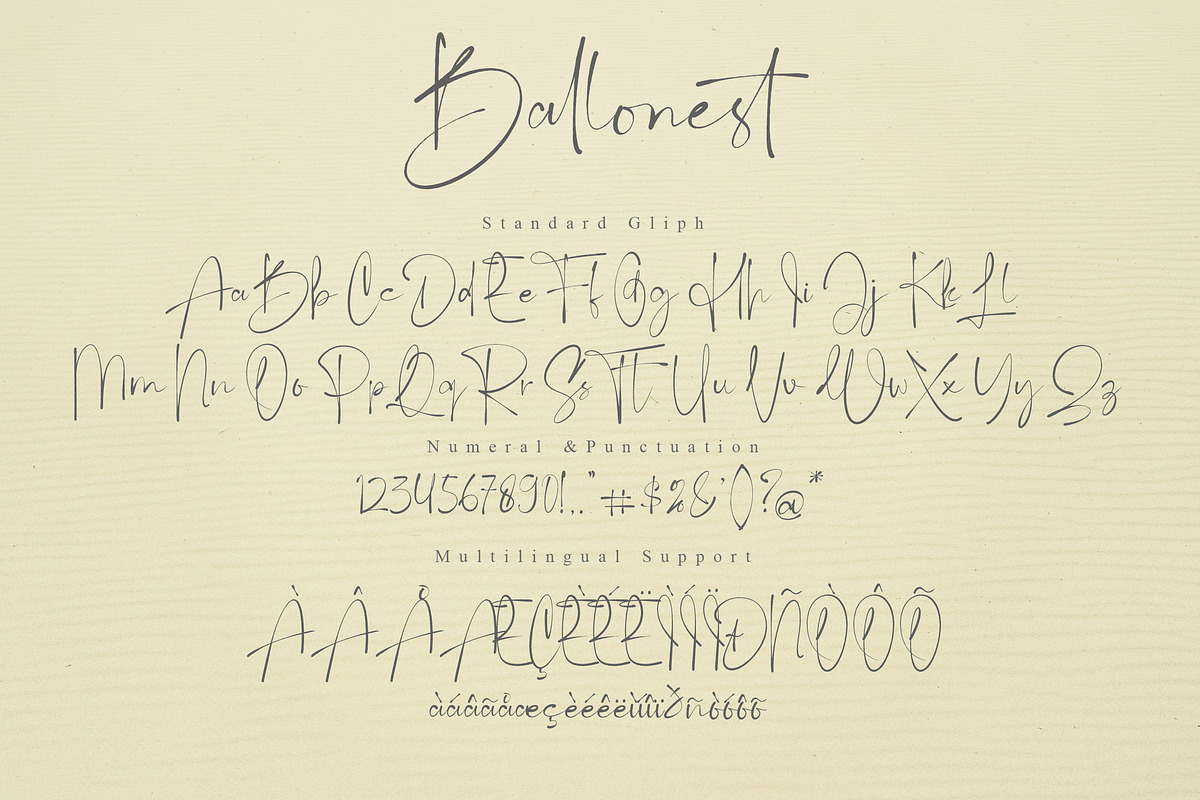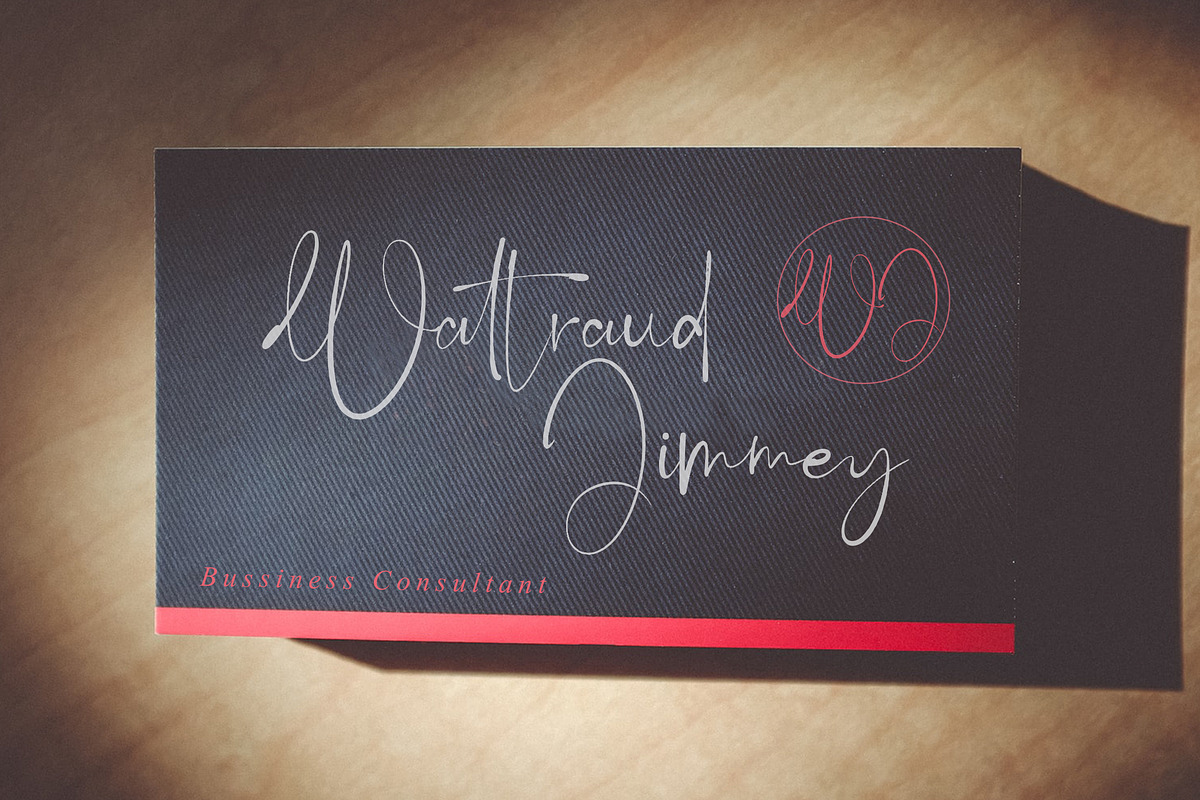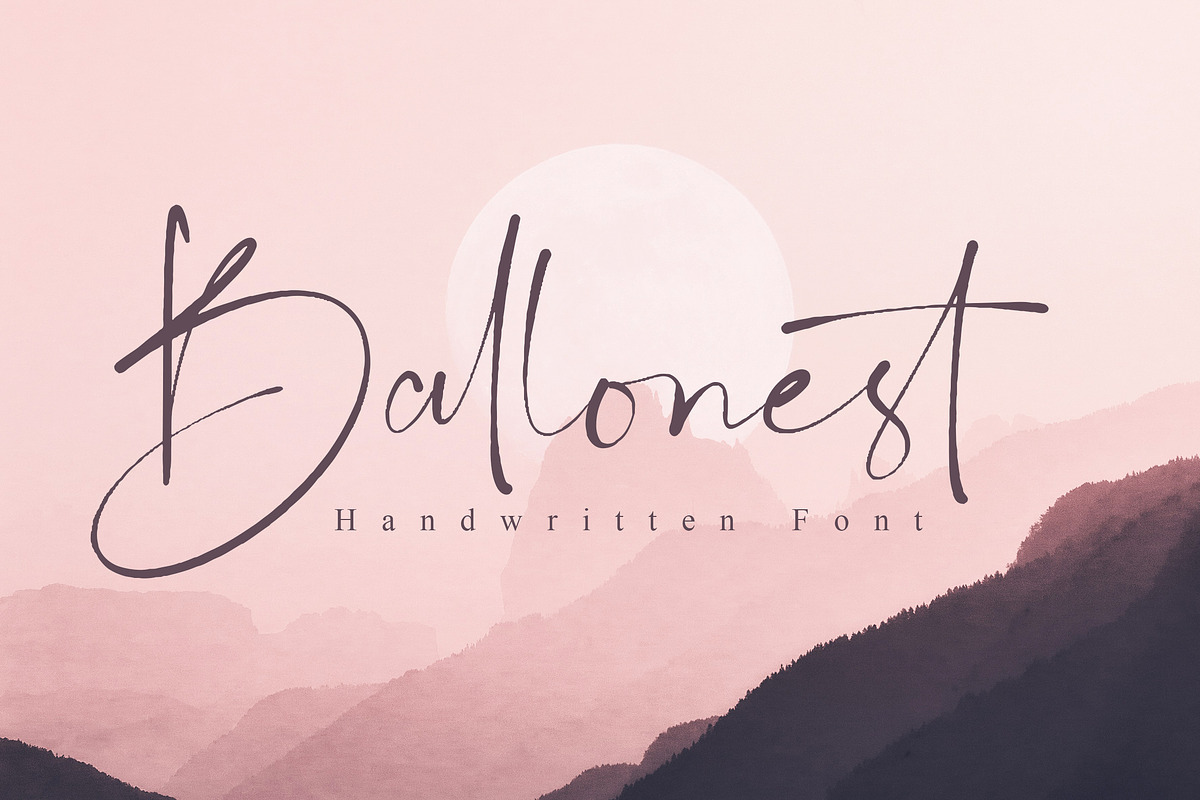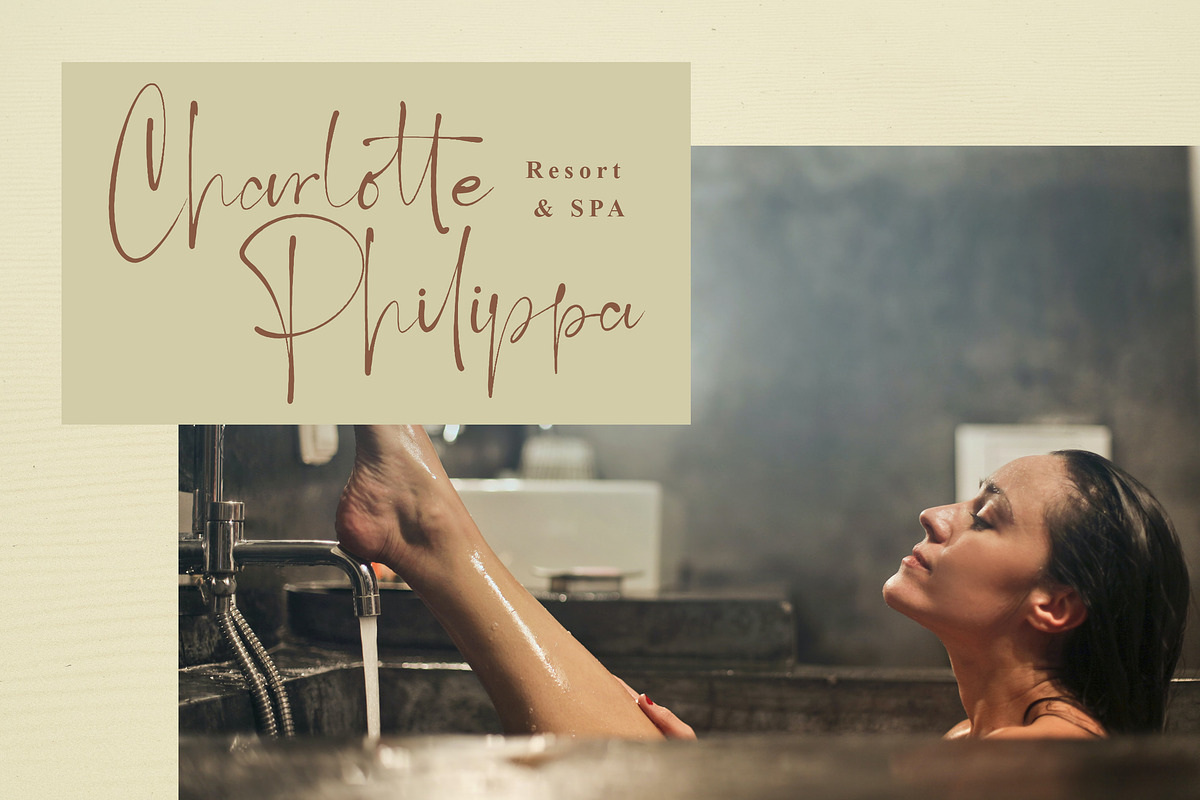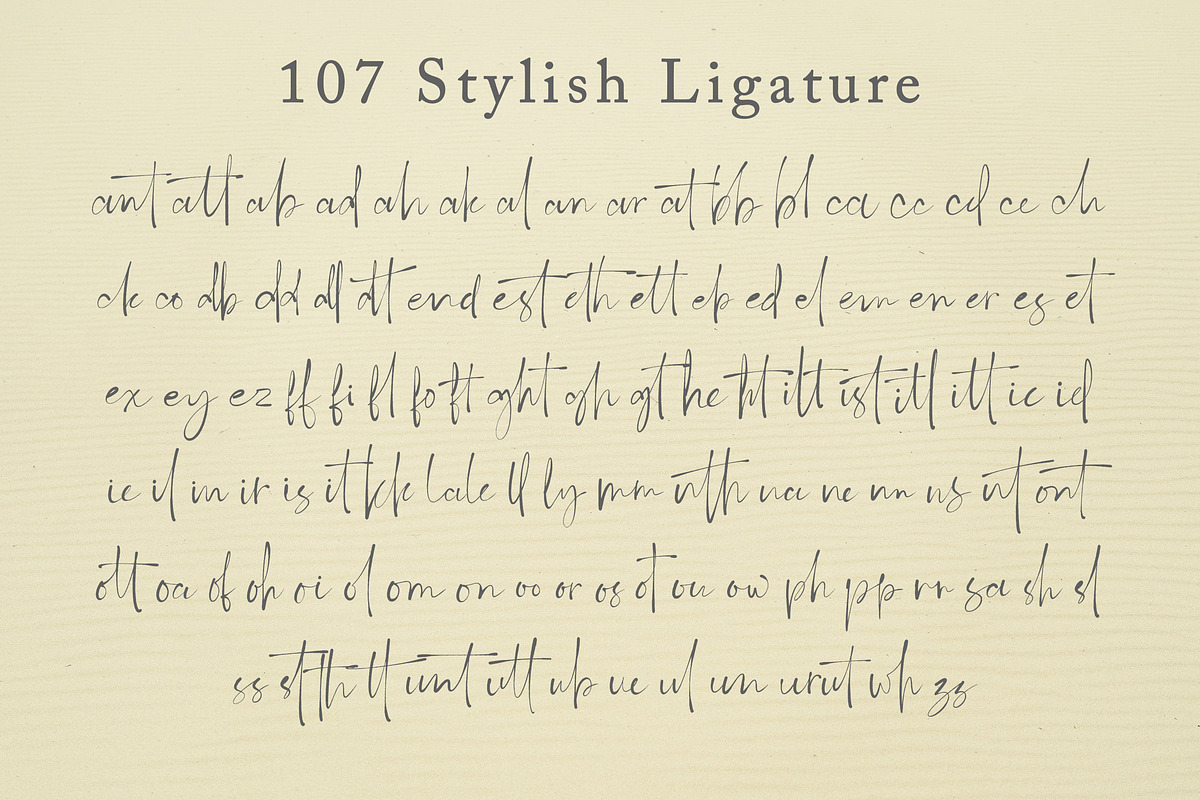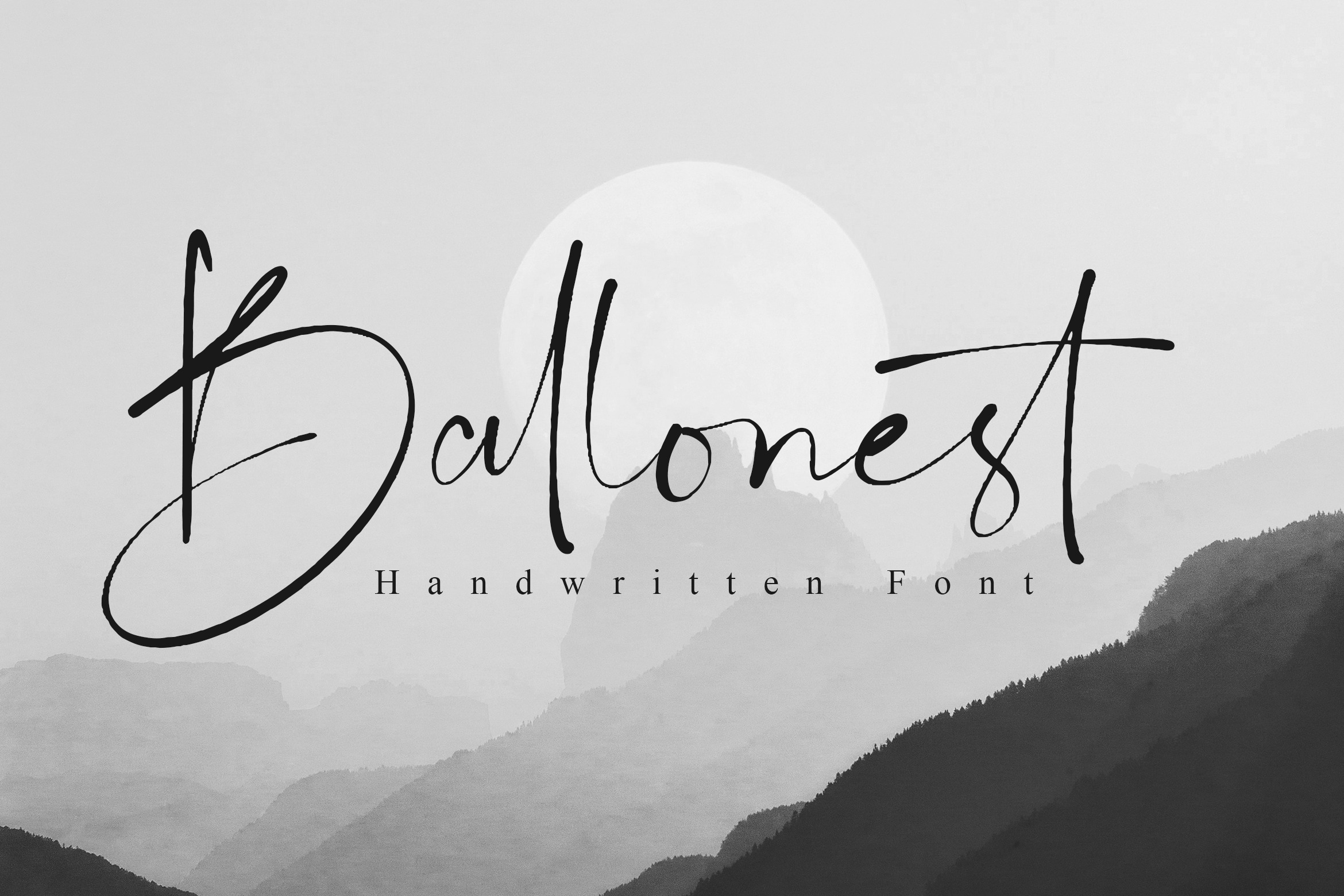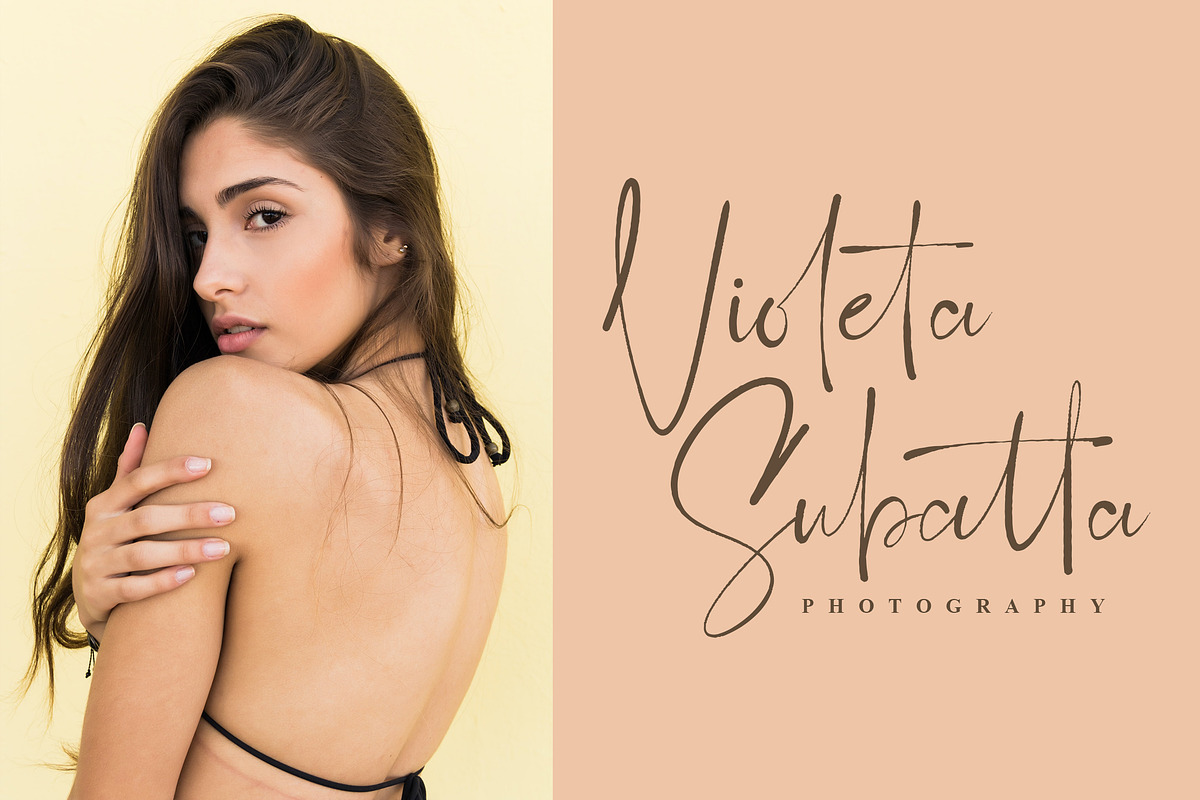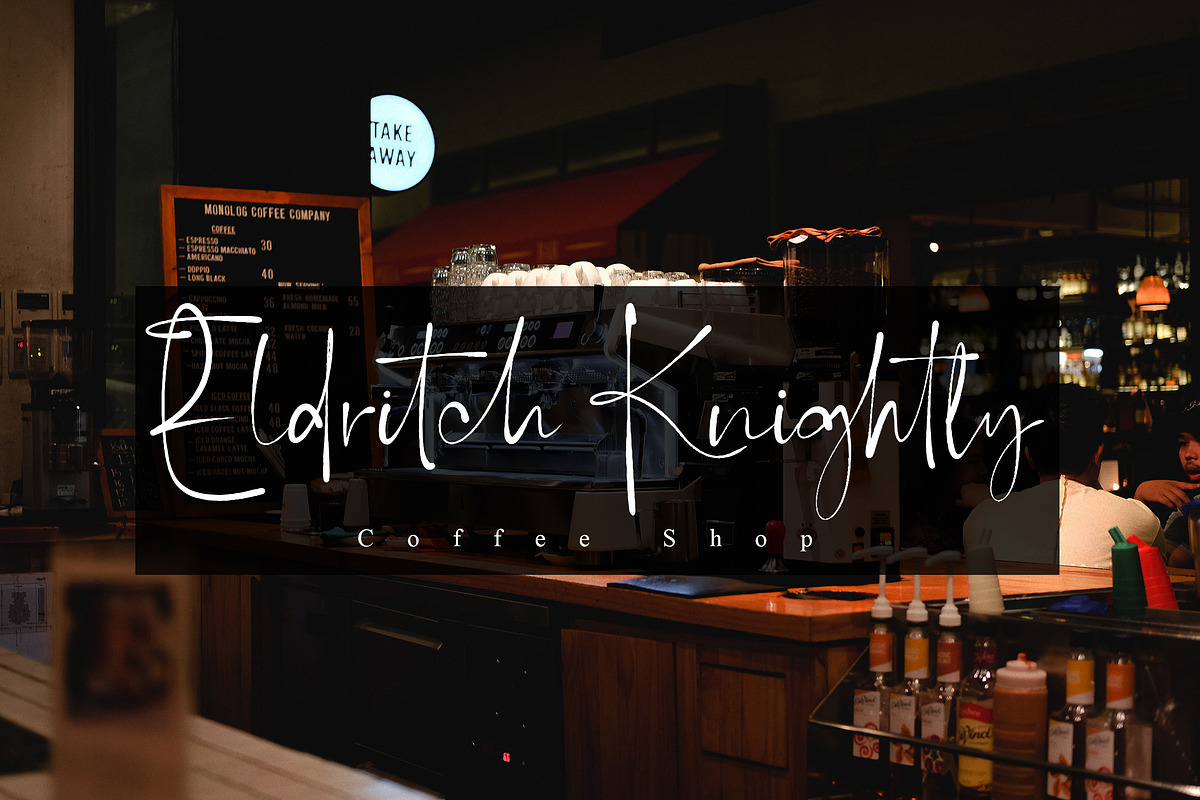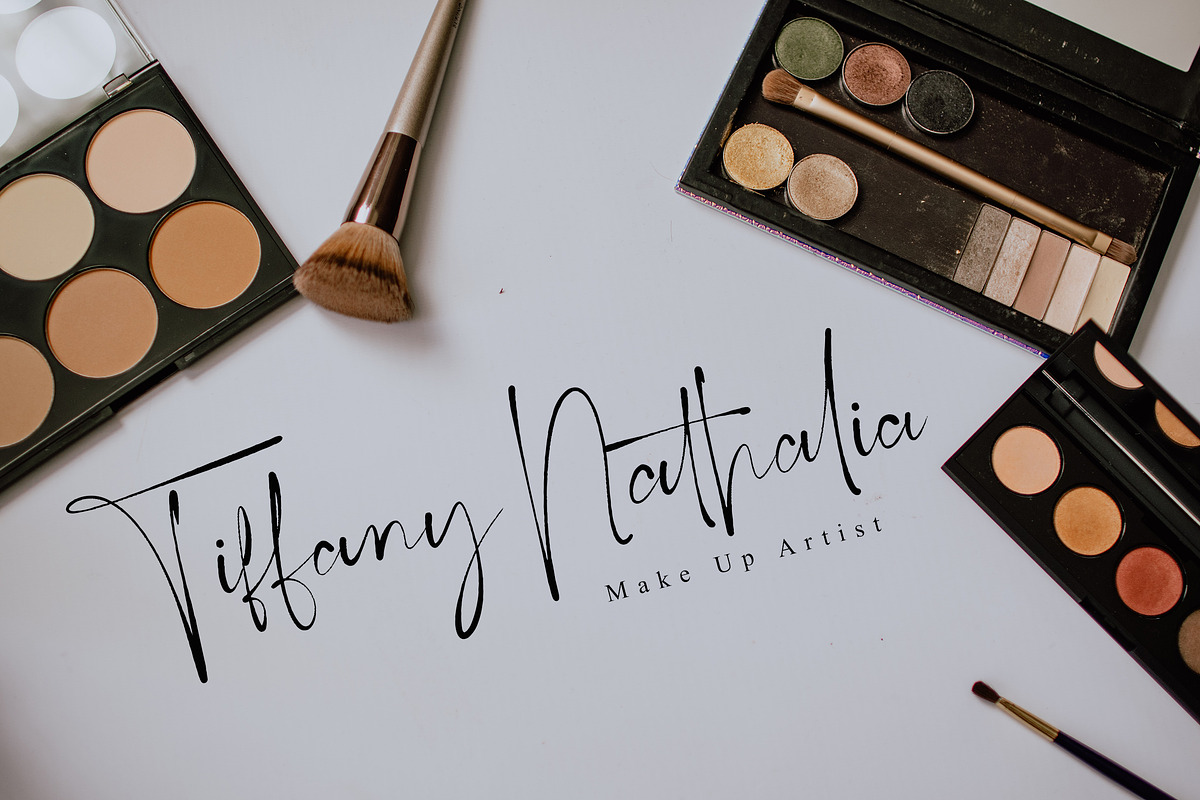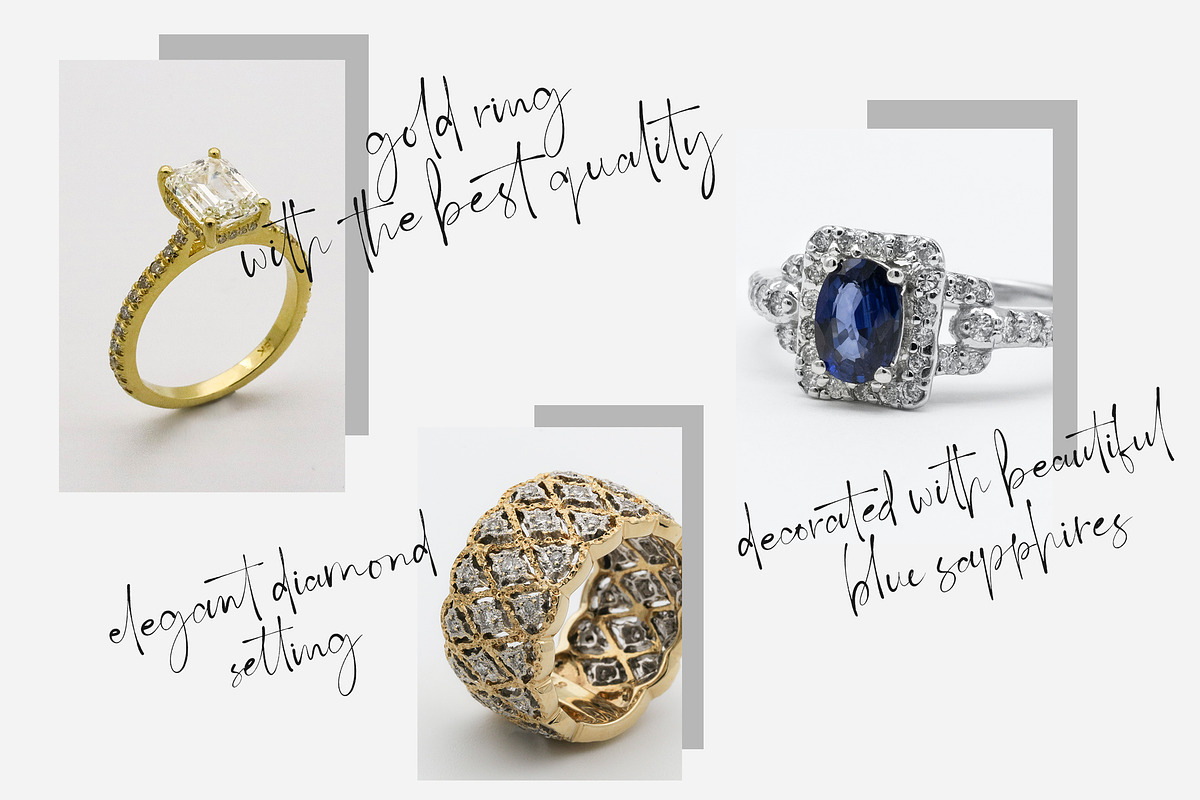
Ballonest | Handwritten Font
Ballonest is a handwritten font with a stylish, elegant and natural touch. It has an original feel and beautiful handwriting. Made seriously, with care and with feeling. Ballonest would perfect for photography, watermark, social media posts, advertisements, logos & branding, invitation, product designs, label, stationery, wedding designs, product packaging, special events or anything that need handwriting taste. Your download will include files;
Ballonest ~ A hand-made, all characters brush font which has a complete set of A-z characters with 107 stylish ligatures. All font files are provided in both TTF & OTF font formats. Includes a range of multilingual support.